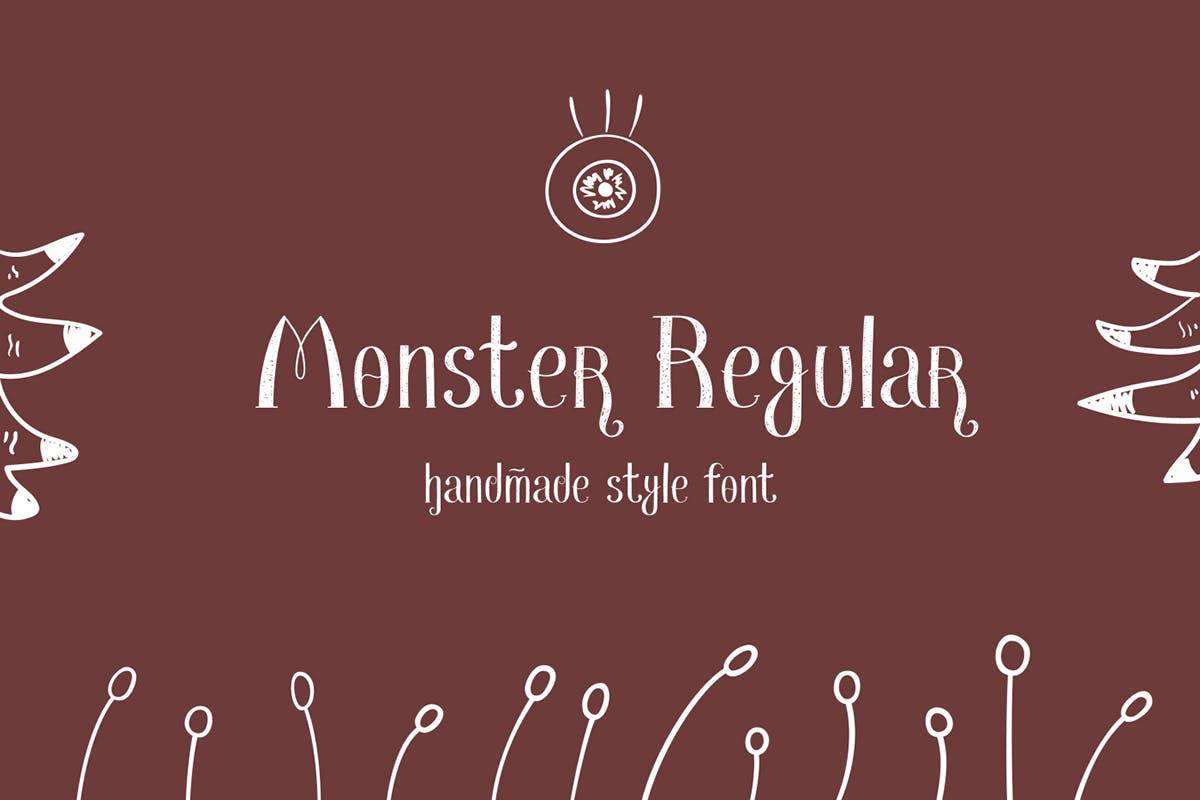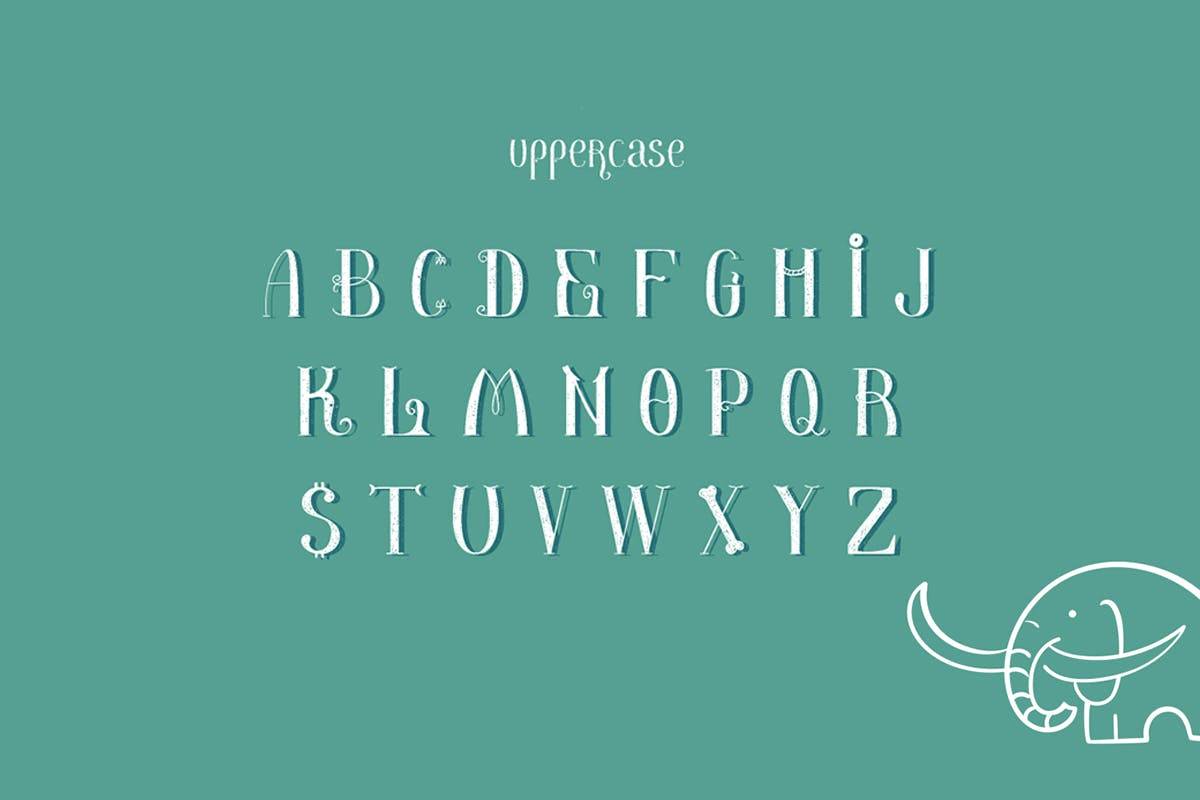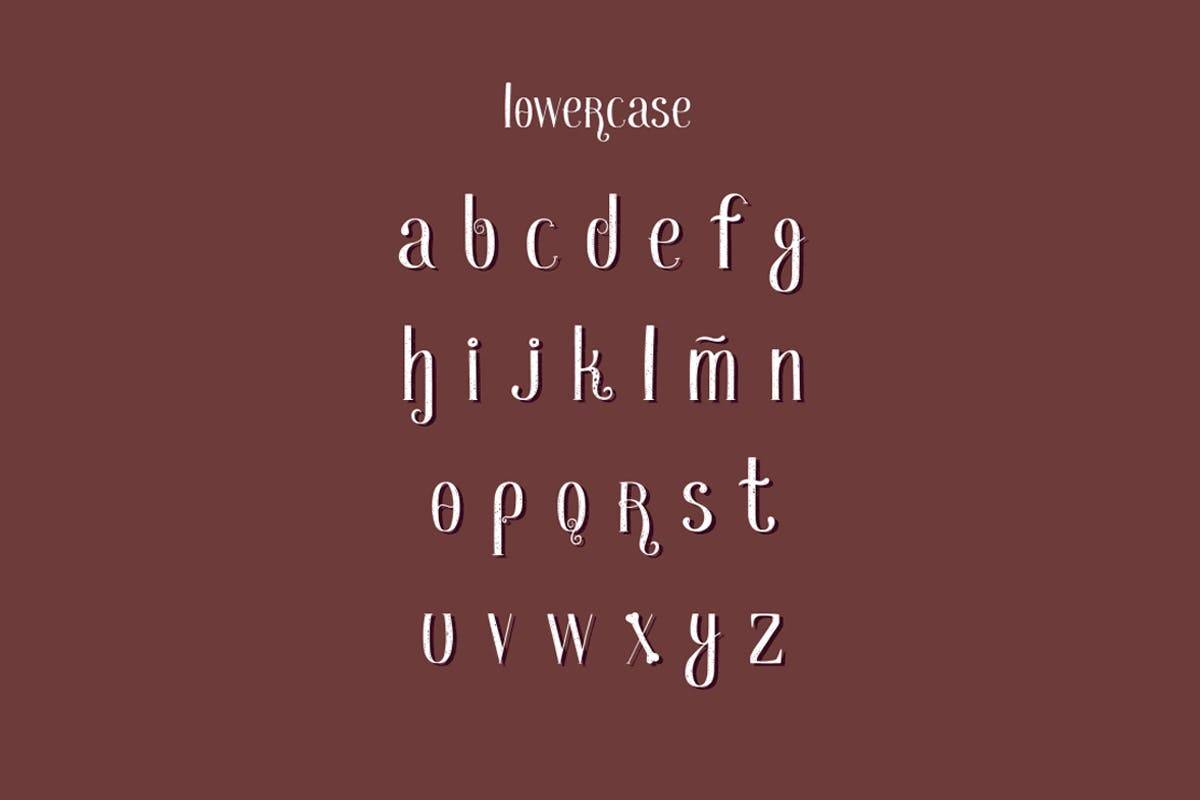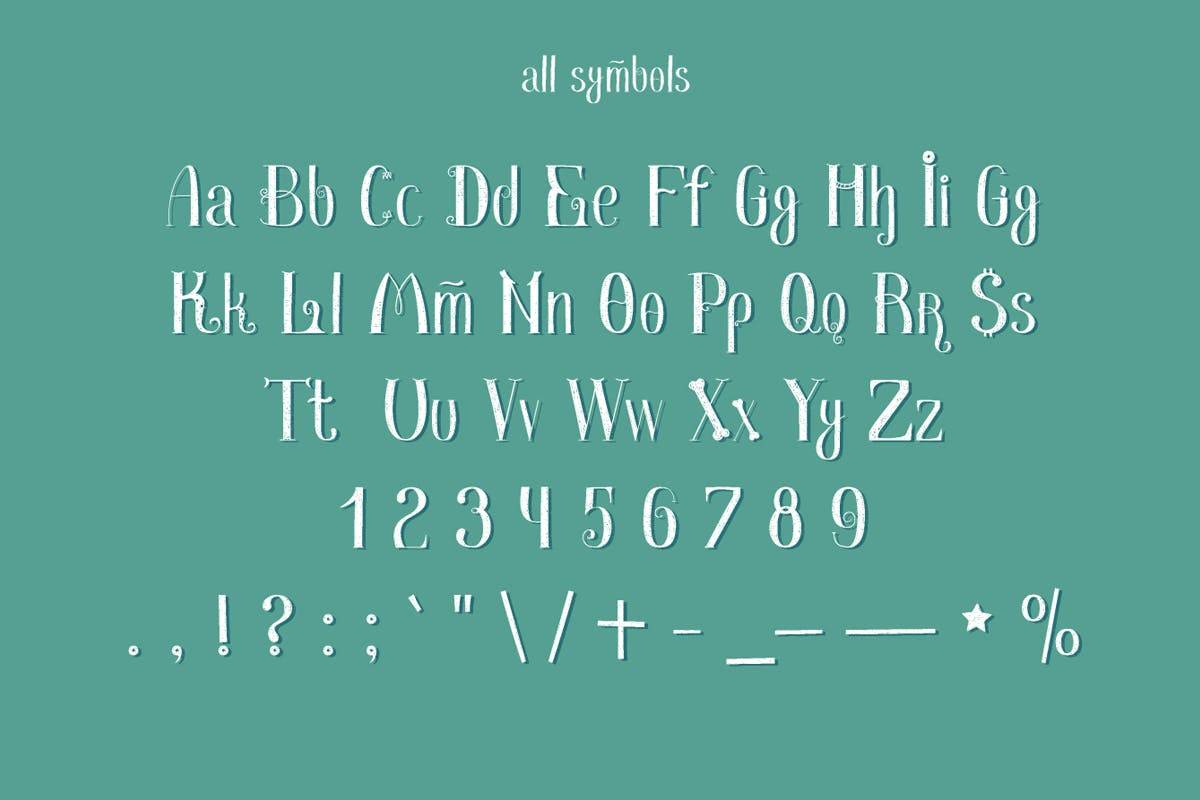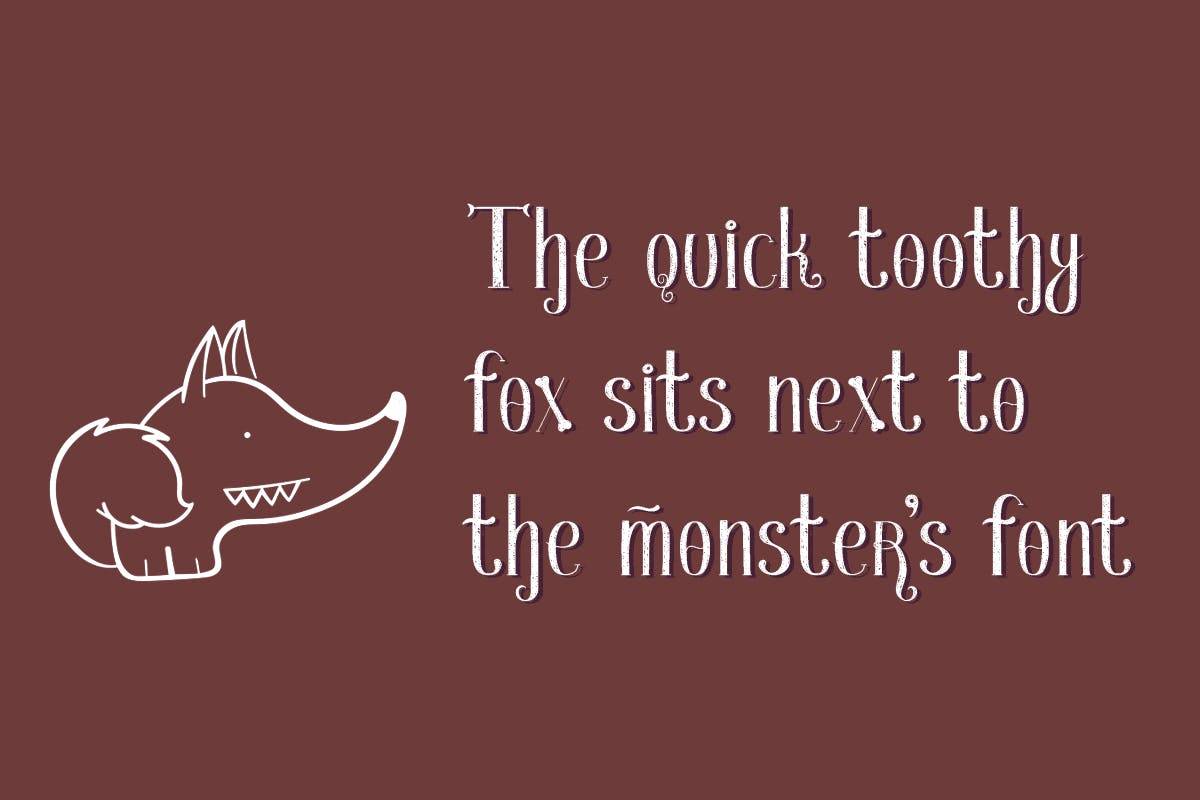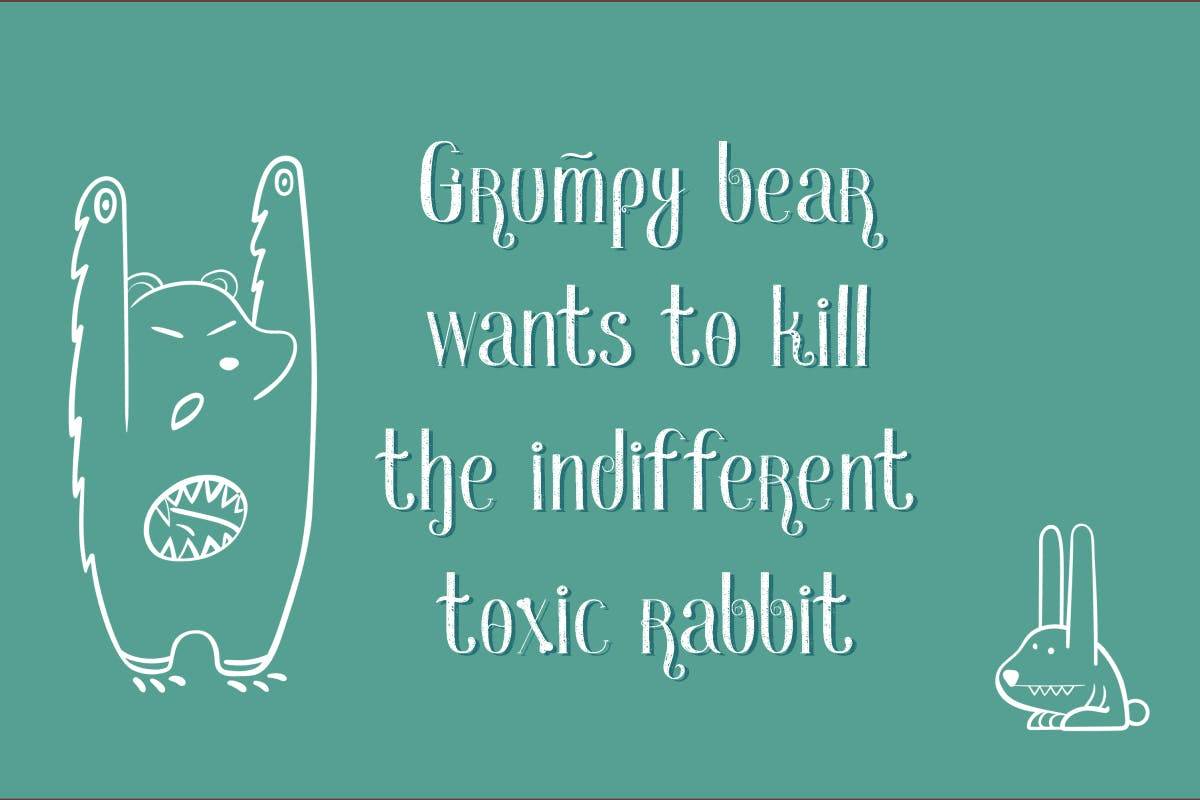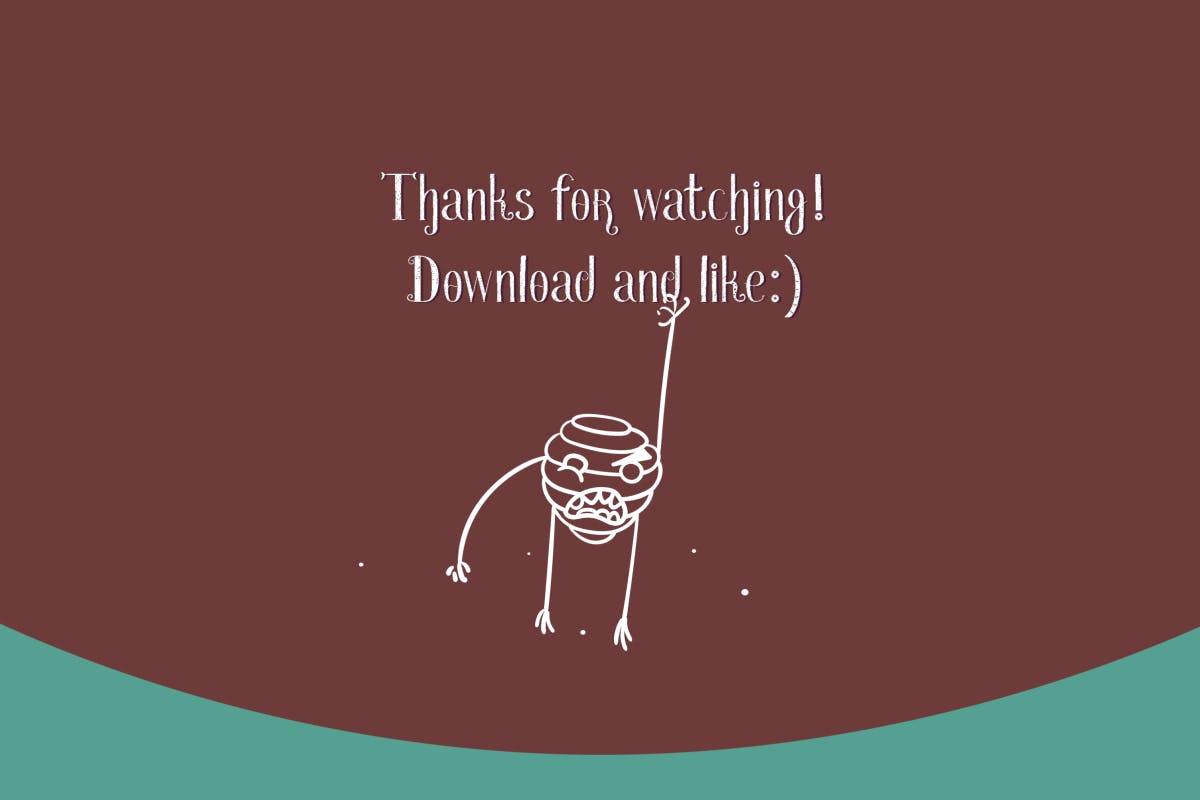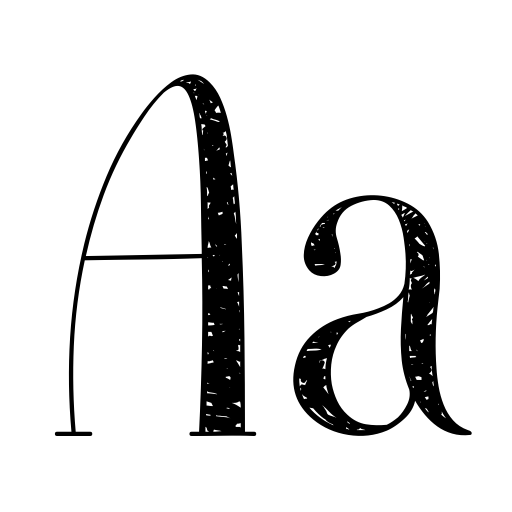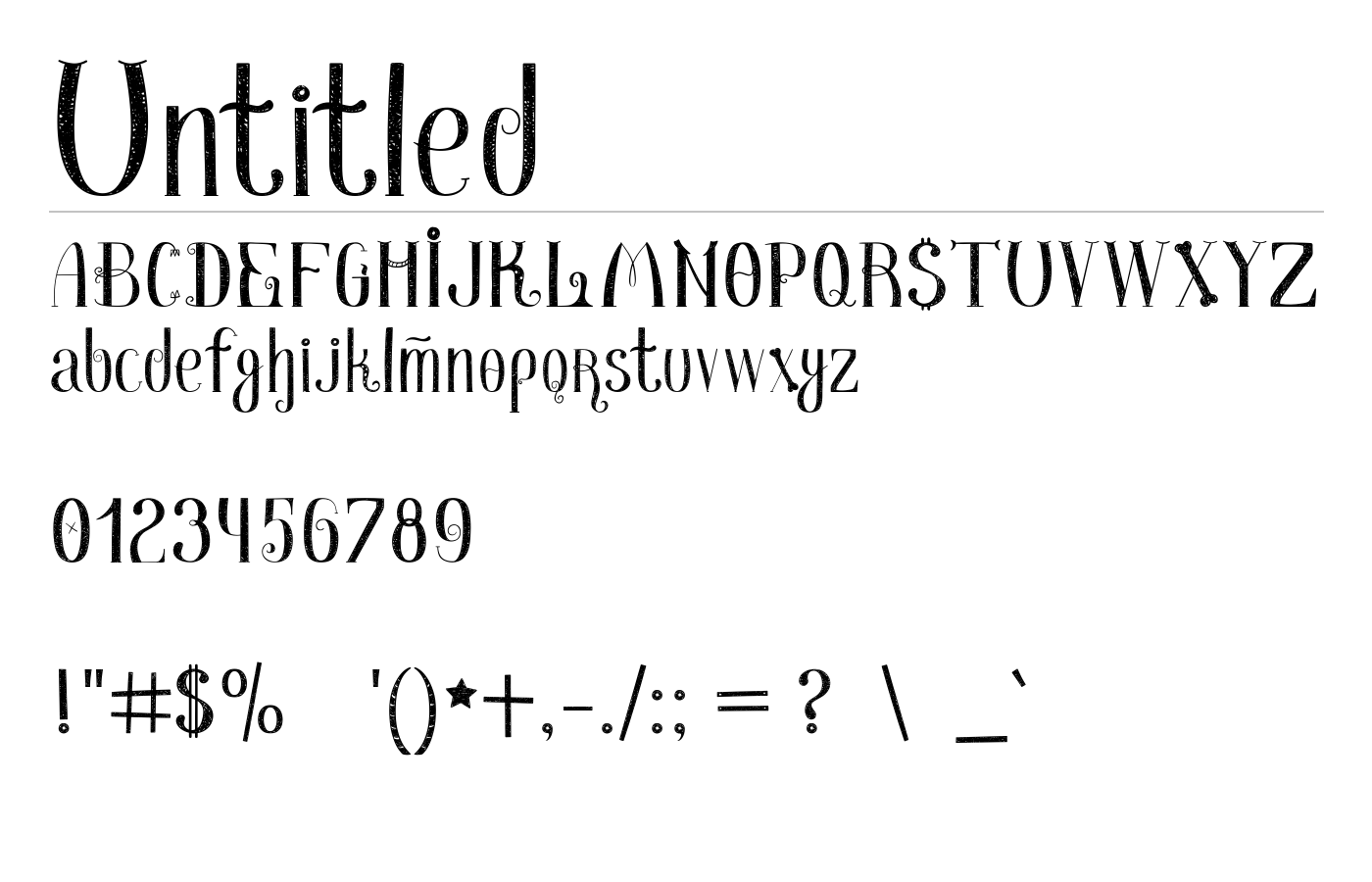
Monster Regular is a whimsical serif font with tall, narrow letterforms and quirky decorative details that give it a playful, slightly eerie character. Its moderate stroke contrast and delicate serifs combined with unique curves and ornamental touches make it ideal for creative, eye-catching headlines or themed projects, especially around Halloween or fantasy branding. This font works best where personality and a handcrafted aesthetic are needed to create a memorable, distinctive impression.
Monster Regular Font
About Monster Regular Font